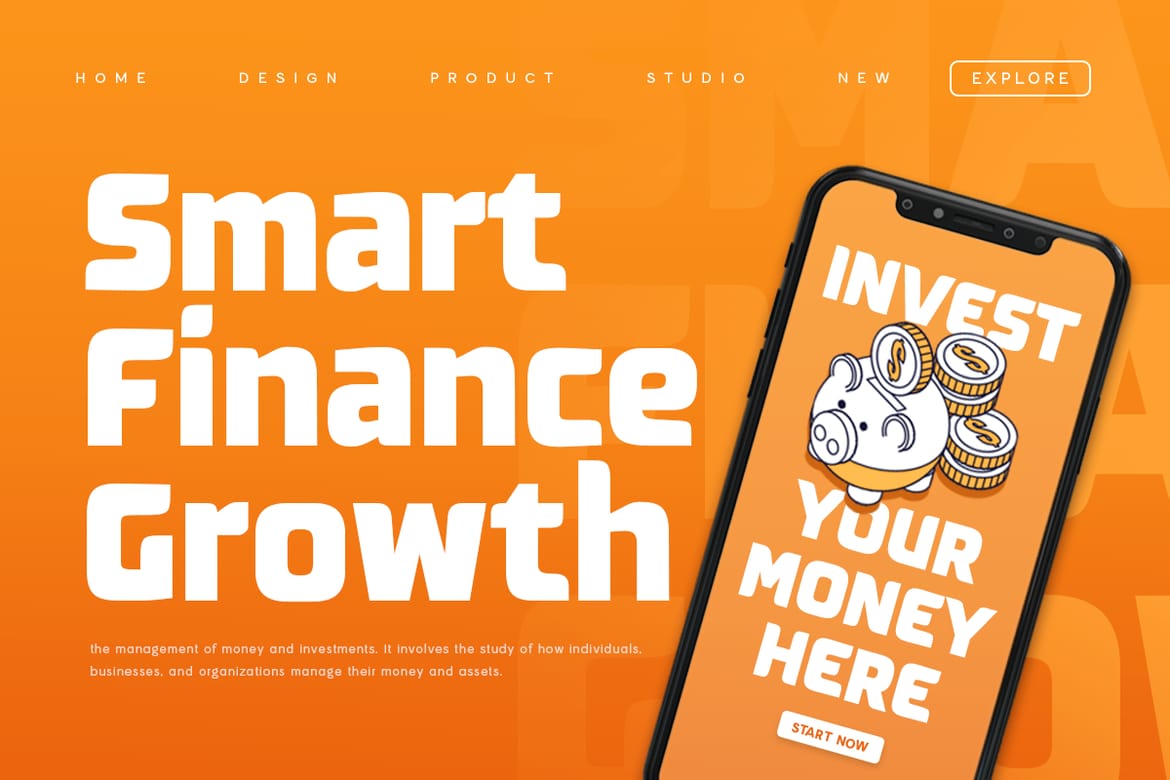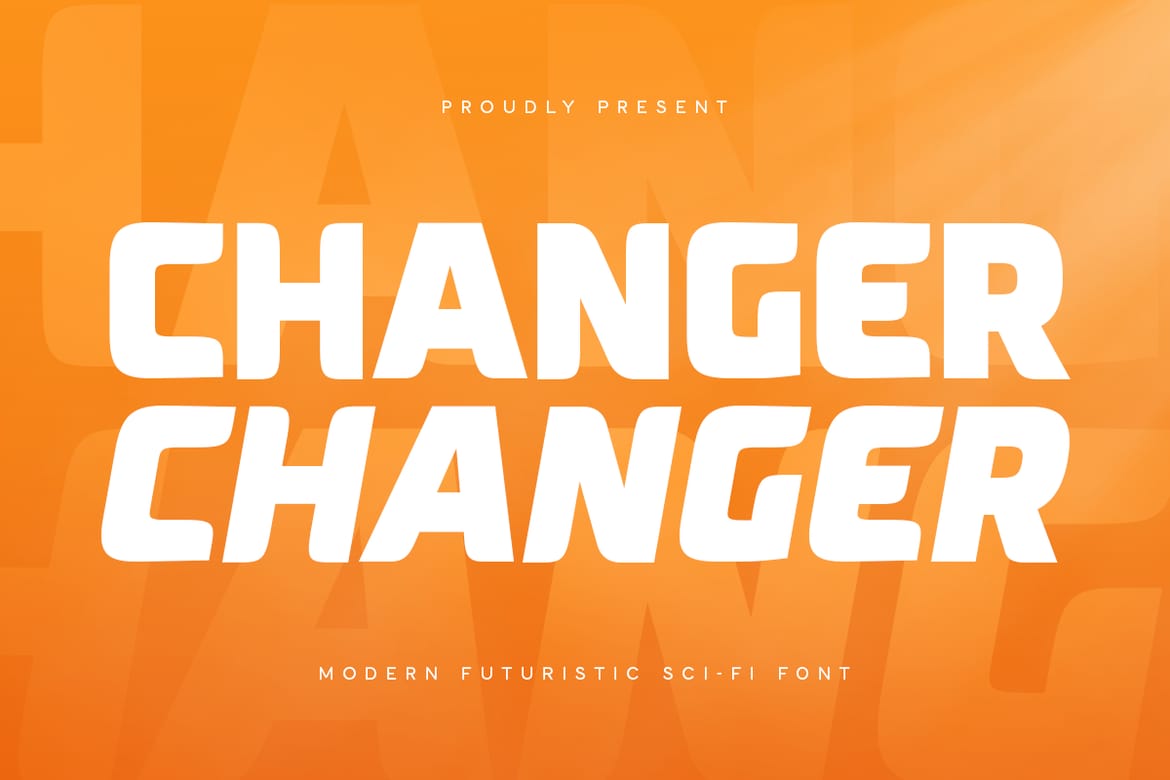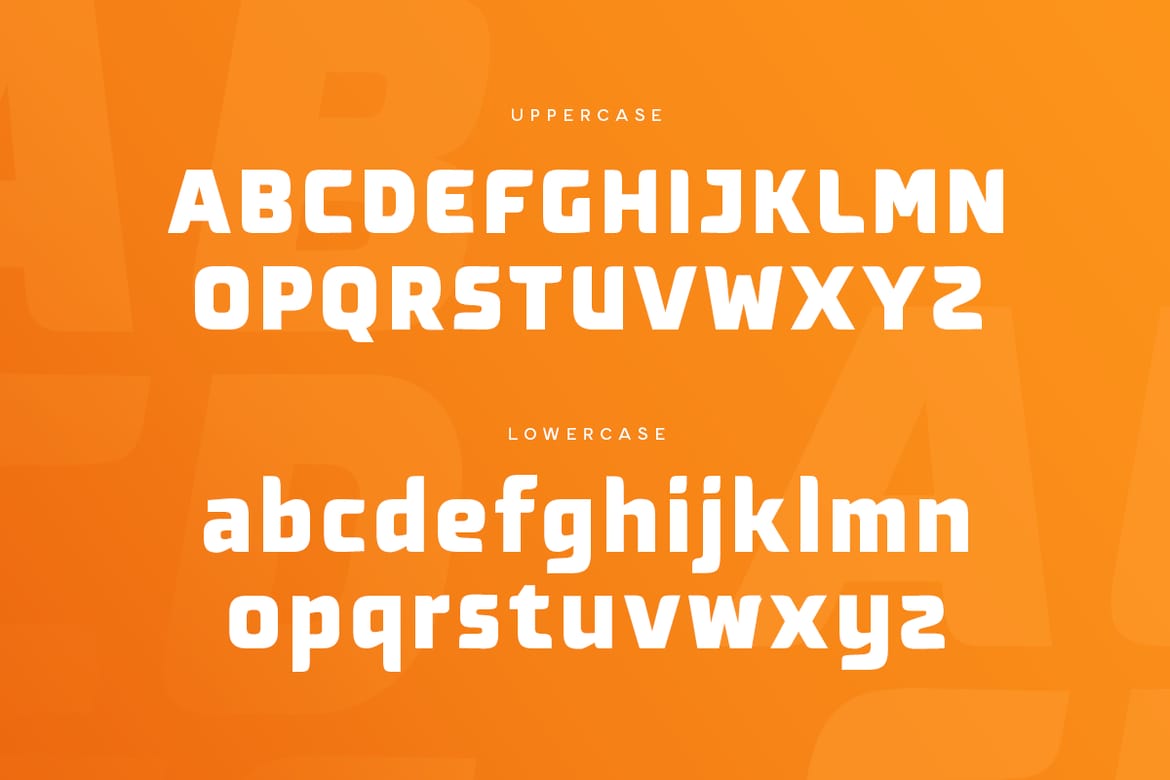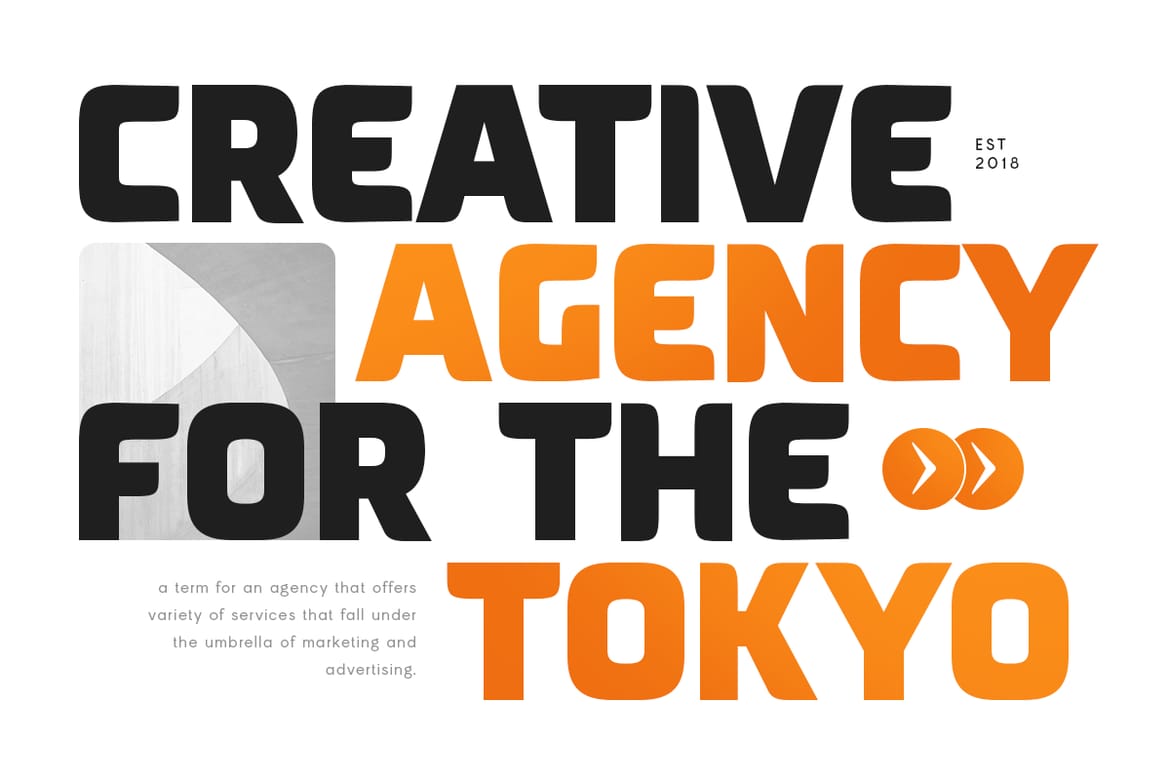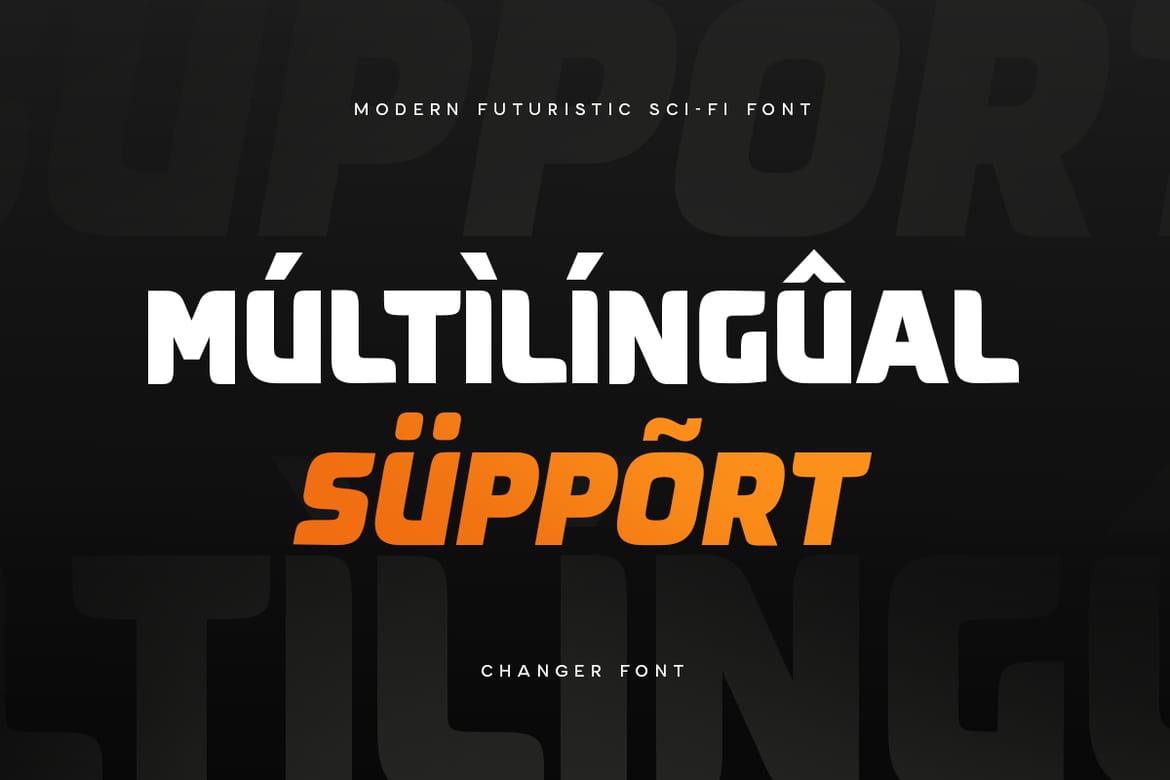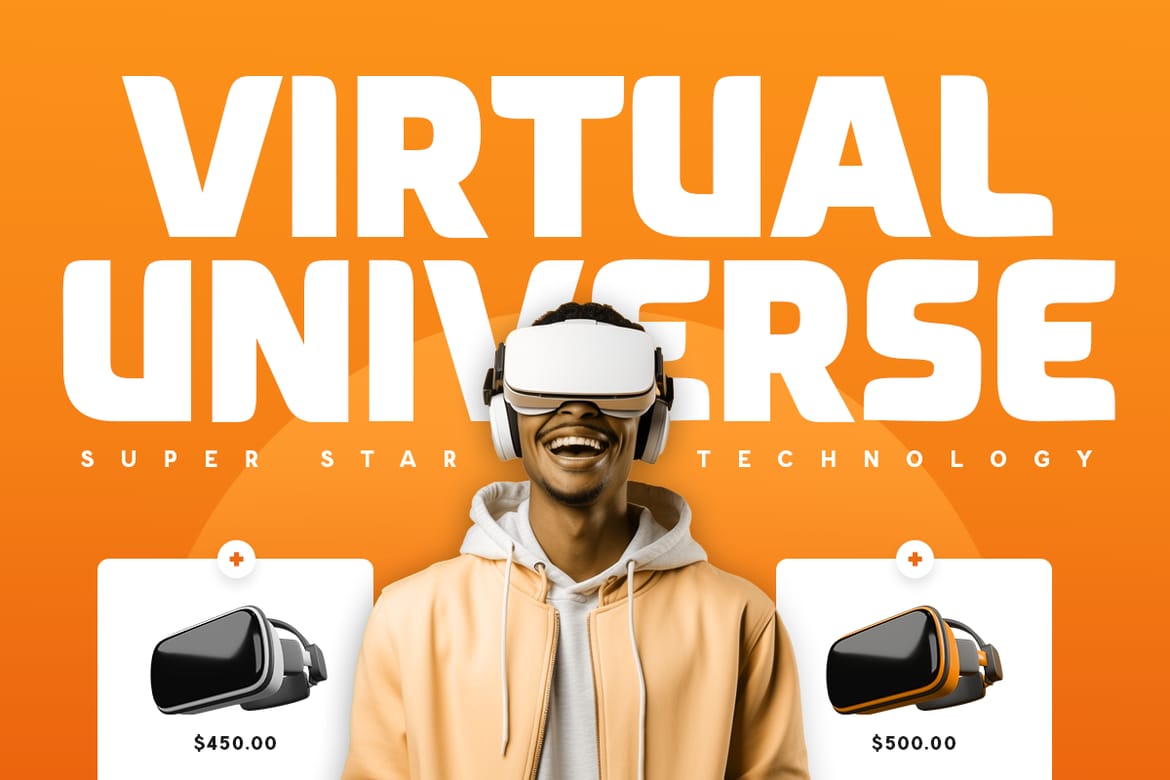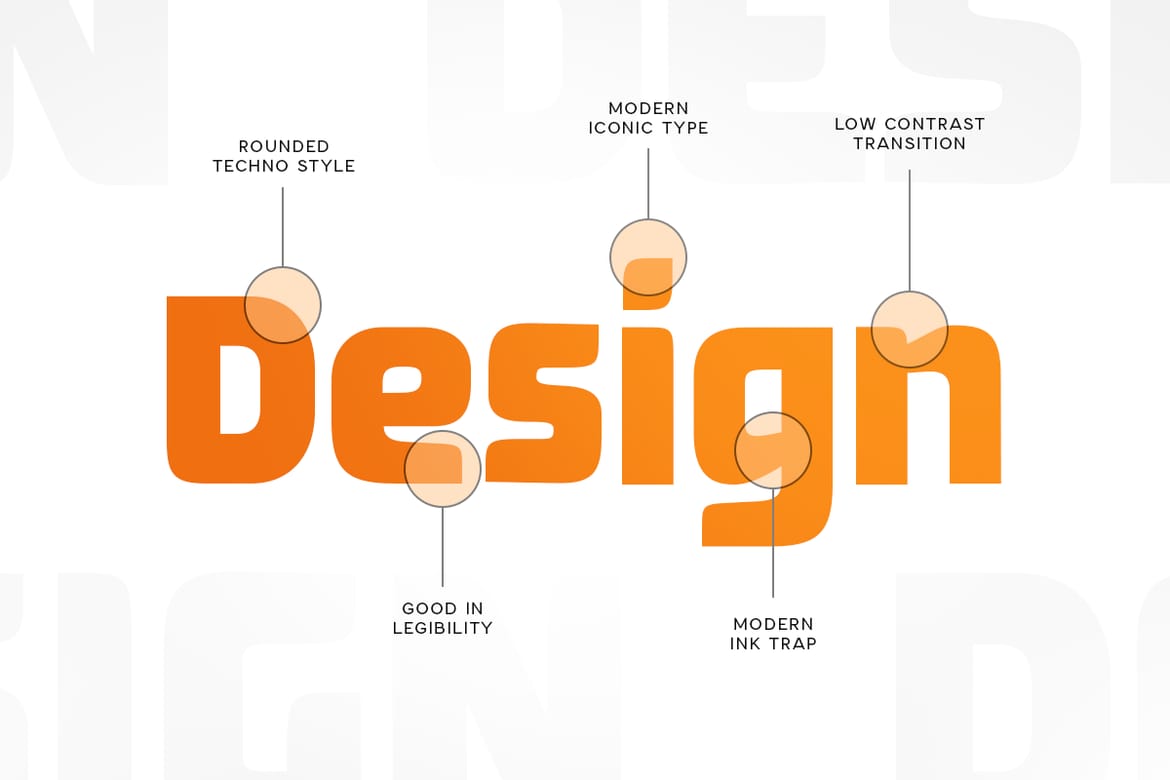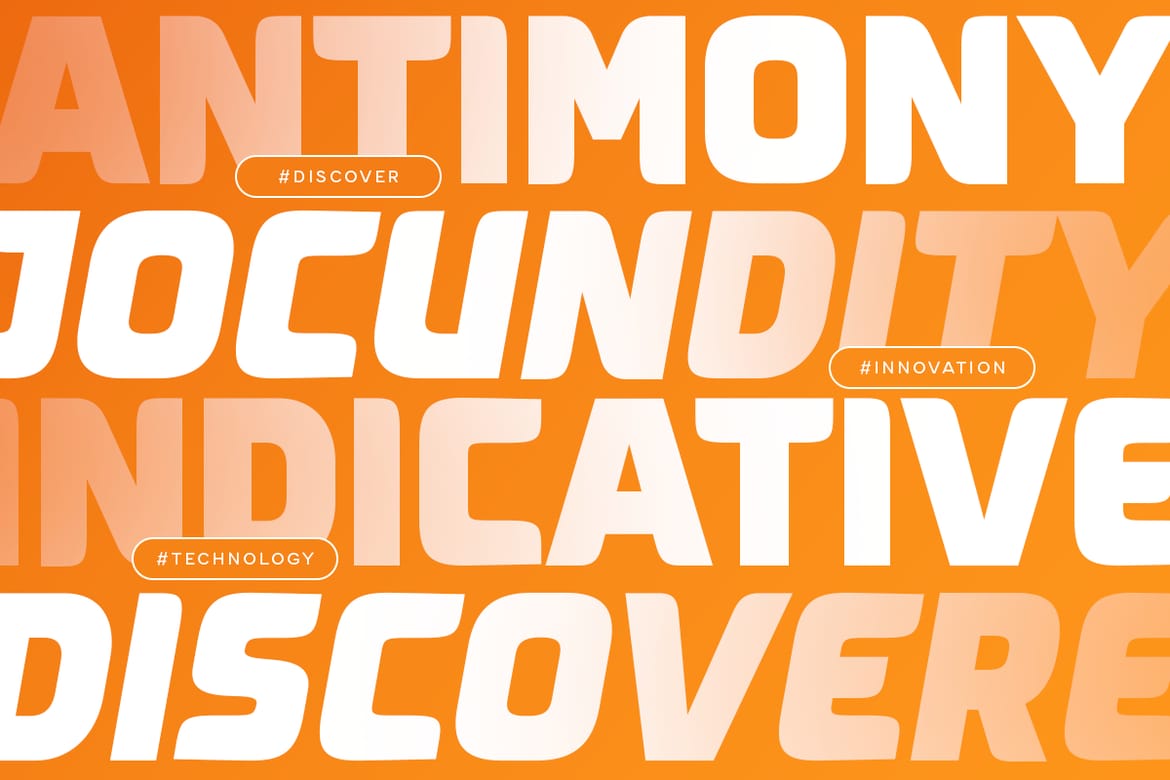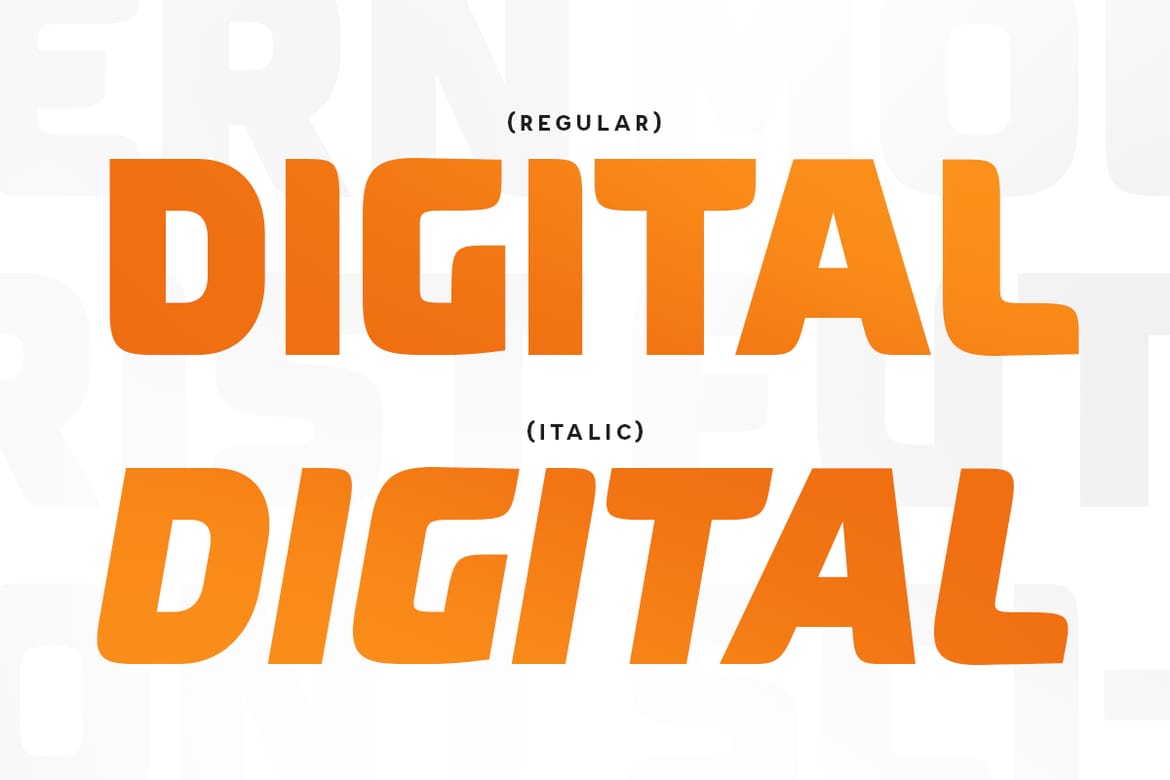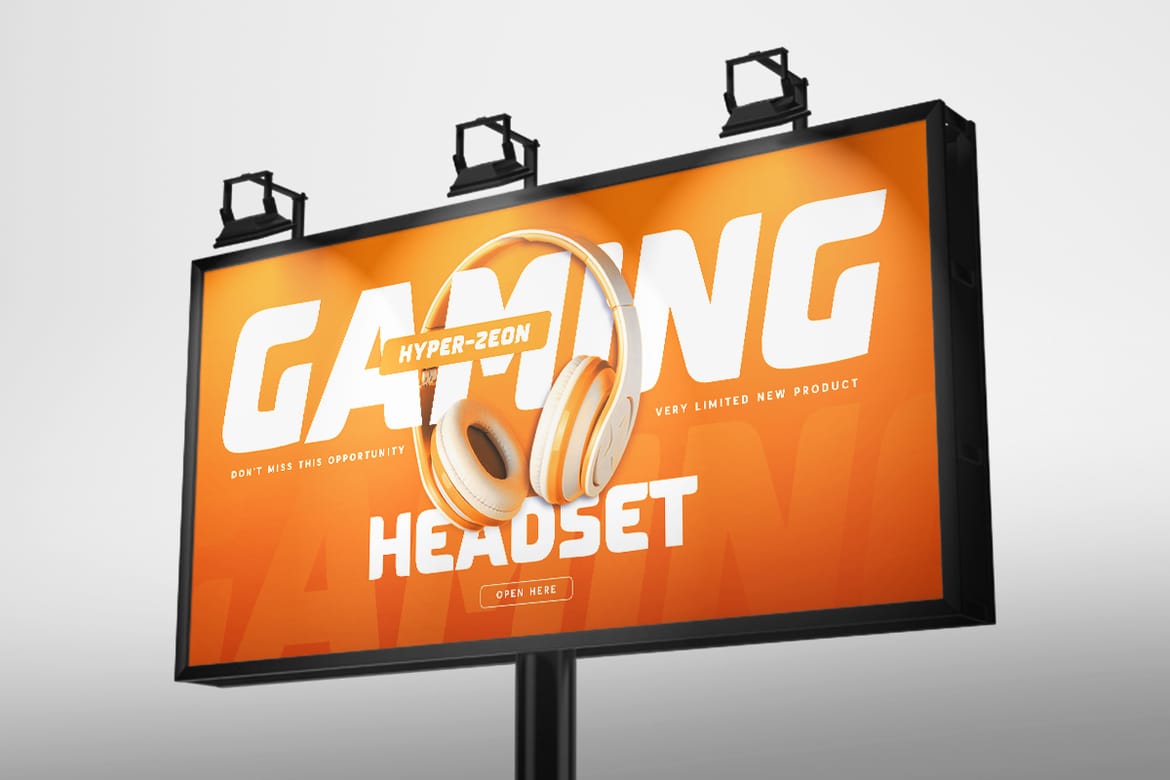
Changer is a Futuristic Sci-fi font that created special for Sci-fi, Modern, Technology and more stand out typography needs, with extra perfect styles that make your design more Futuristic. It's so perfect to add your style and headline overview for Cryptocurrency, technology, film, and Sci-fi theme. And specially for this font, we crafted for modern style and technology feels so enjoy to create any project that will show your main idea out.
Changer Modern Futuristic Sci-fi Font ready with:
Futuristic characters prepared to get creative alternatives in Technology theme
Preview as a inspirations that you can do with Changer font
Ready with Technology characters
- Futuristic techno sci-fi typography
- Perfect for crypto and game projects